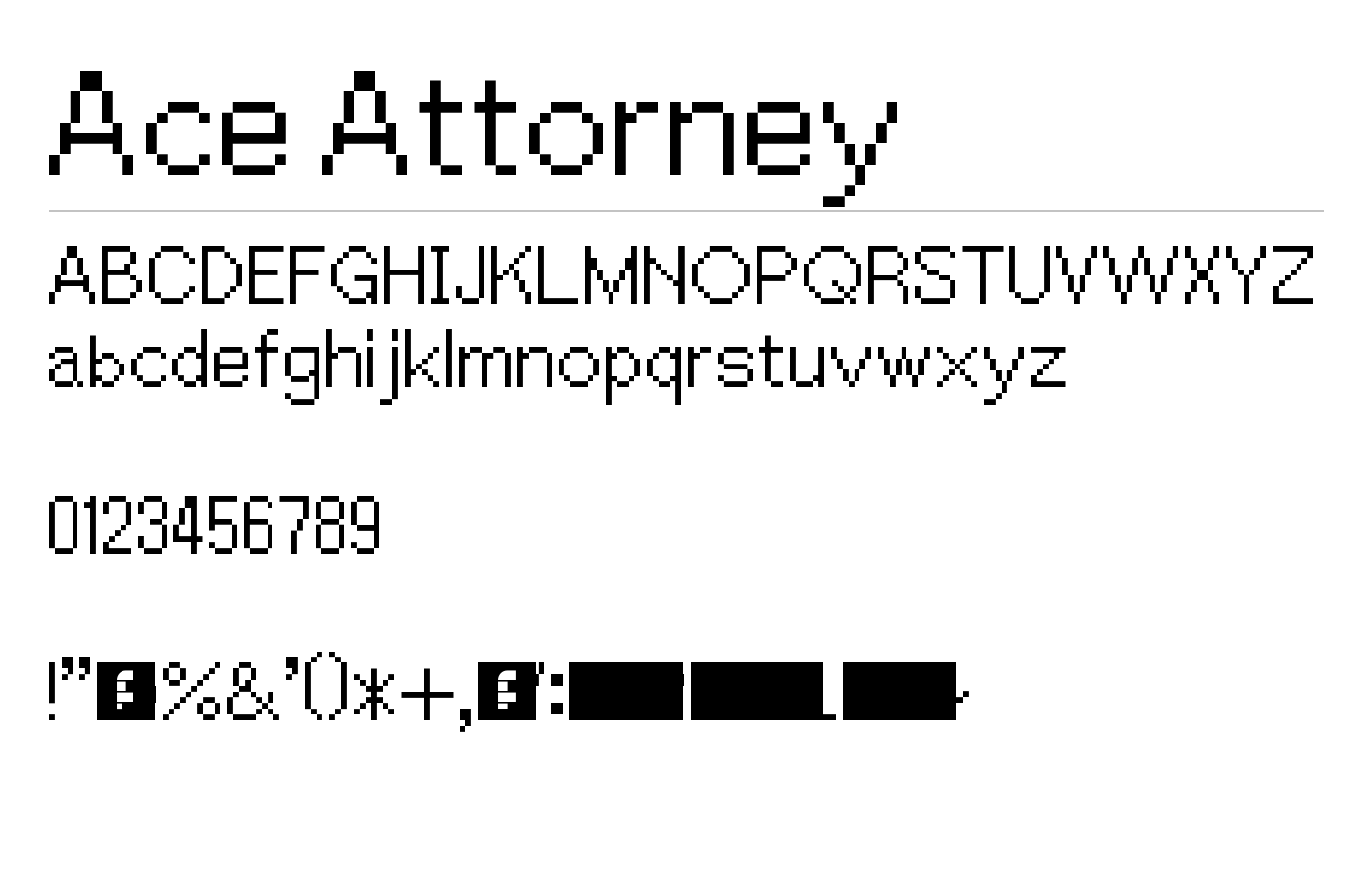
Ace Attorney Font is a pixelated sans serif typeface that evokes a retro, digital aesthetic reminiscent of early computer or gaming interfaces. Its clean, monospaced structure with uniform stroke weight and simple geometric letterforms make it perfect for nostalgic or tech-themed designs, especially in video games, digital art, or any project seeking a playful yet precise look. This font stands out for its readability at small sizes and its strong vintage video game vibe.
Ace Attorney Font
About Ace Attorney Font
| Font family | Ace Attorney Font |
| Designer | David Fens |